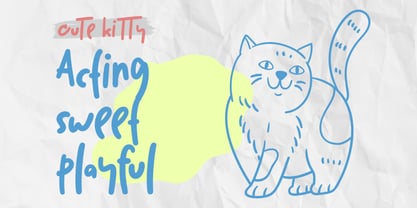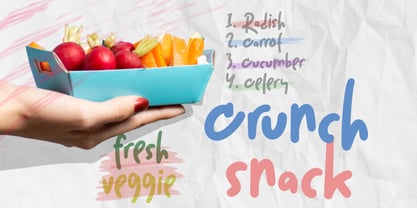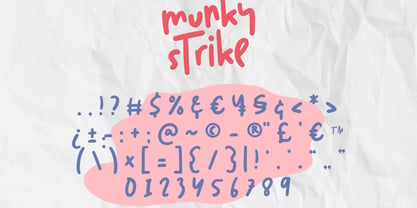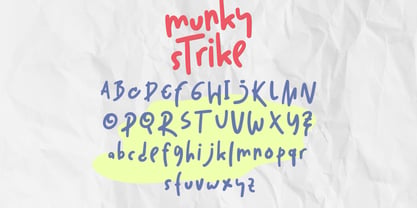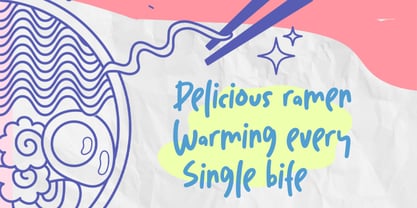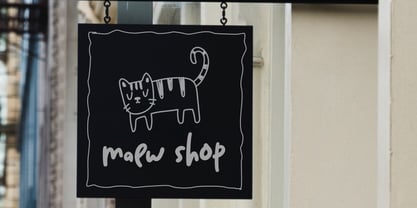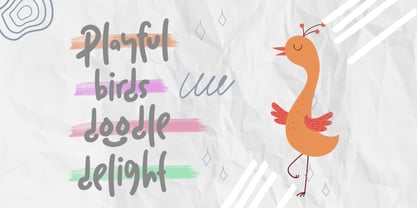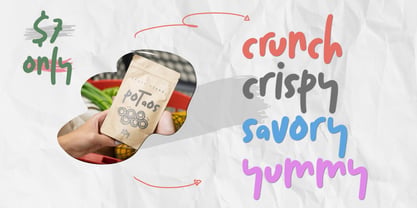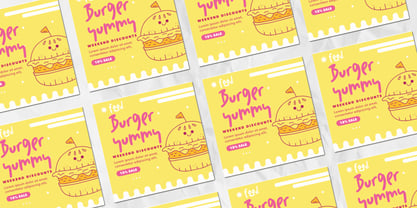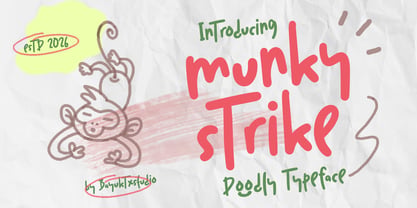
Munky Strike
by Bayuktx
The Munky Strike Font Family was designed by Bayu Aji Fais Mursid and published by Bayuktx. Munky Strike contains 1 styles. More about this family
Munky Strike – Doodly Typeface Font Munky Strike Doodly Typeface Font is a playful and energetic display font inspired by hand-drawn doodles, quirky sketches, and spontaneous creative strokes. Featuring irregular lines, bouncy shapes, and fun character details, this typeface delivers a lively, cheerful, and expressive visual style. Designed to capture the spirit of creativity and imagination, Munky Strike brings a unique handwritten feel with a bold and slightly chaotic personality. Each letter is crafted with a doodly touch, creating a friendly and dynamic rhythm that feels fun, youthful, and full of character. Perfect for both digital and print projects, Munky Strike stands out in designs that need a playful, eye-catching, and creative typography style. Key Features : * Uppercase & Lowercase Characters * Numerals & Punctuation * Multilingual Support * PUA Encoded & OpenType Features * Hand-Drawn Doodly Style * Playful & Irregular Letterforms Suitable For : * Kids & Playful Designs * Posters & Fun Headlines * Branding & Creative Logos * Packaging & Snack Products * Social Media Graphics * Comics & Illustrations * School & Educational Projects With Munky Strike Doodly Typeface Font, your designs gain playful energy, creative expression, and a fun handmade charm — perfect for projects that demand joy, uniqueness, and a bold doodle-style personality.
Designers: Bayu Aji Fais Mursid
Foundry: Bayuktx